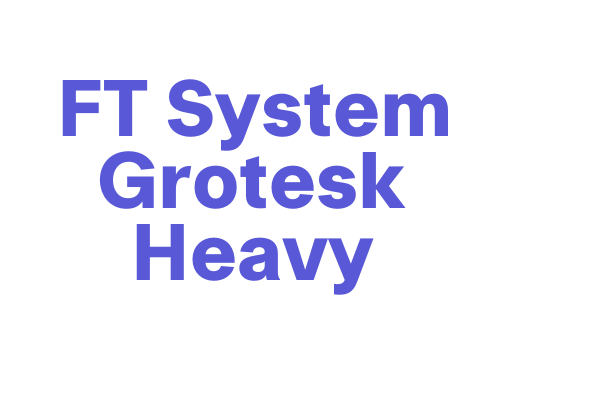
FT System Grotesk Heavy is a bold and impactful sans-serif font designed by Harrison Marshall. Part of the FT System font family, it exudes a modern and clean aesthetic perfect for conveying a strong and authoritative message. Ideal for headlines, logos, and branding projects that require a bold and eye-catching typography.
Font Name: FT System Grotesk Heavy
Designer: Harrison Marshall
Font Family: FT System